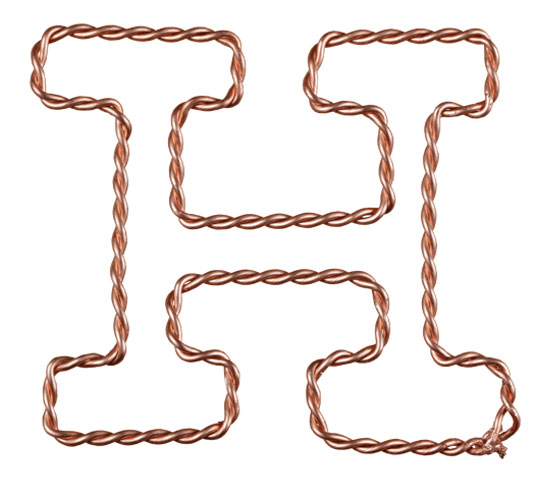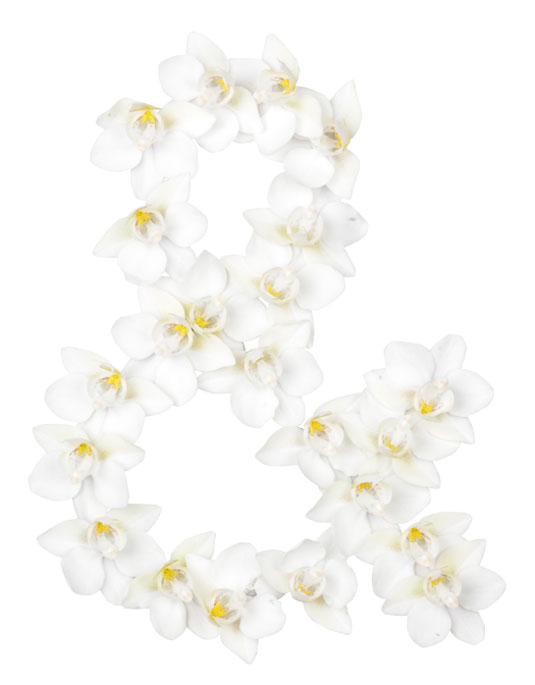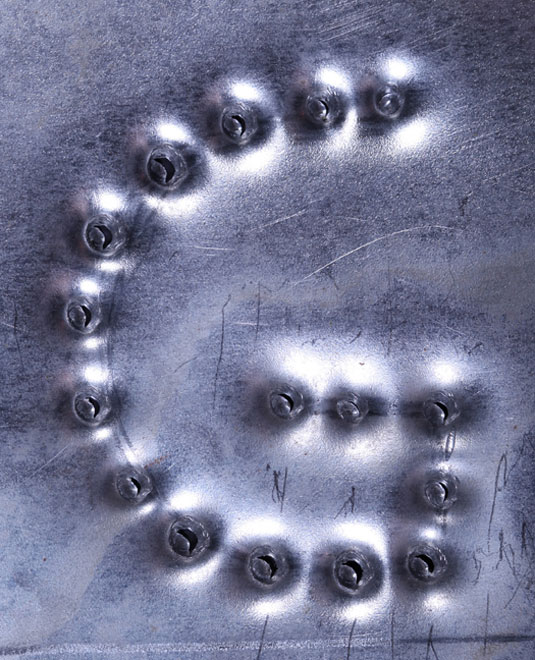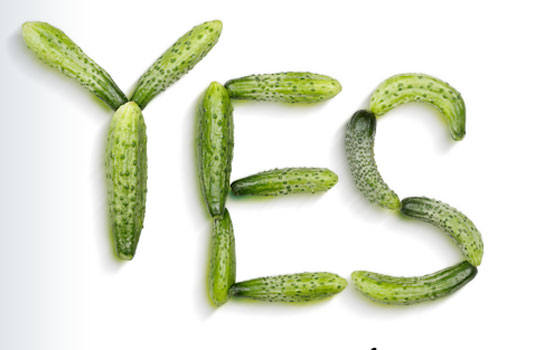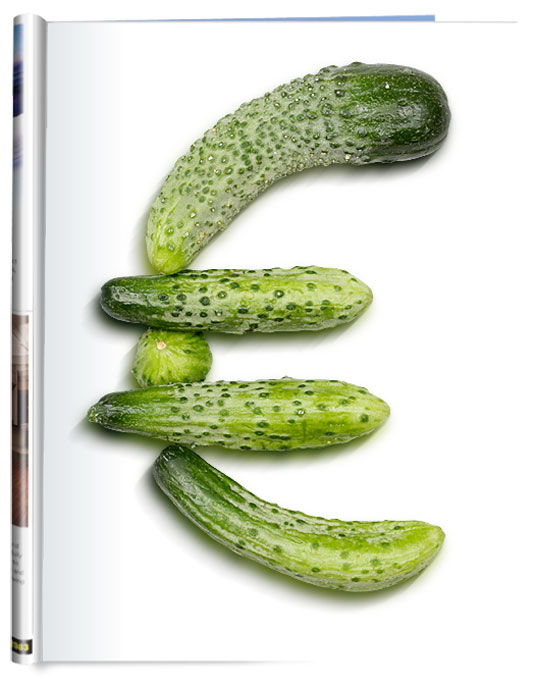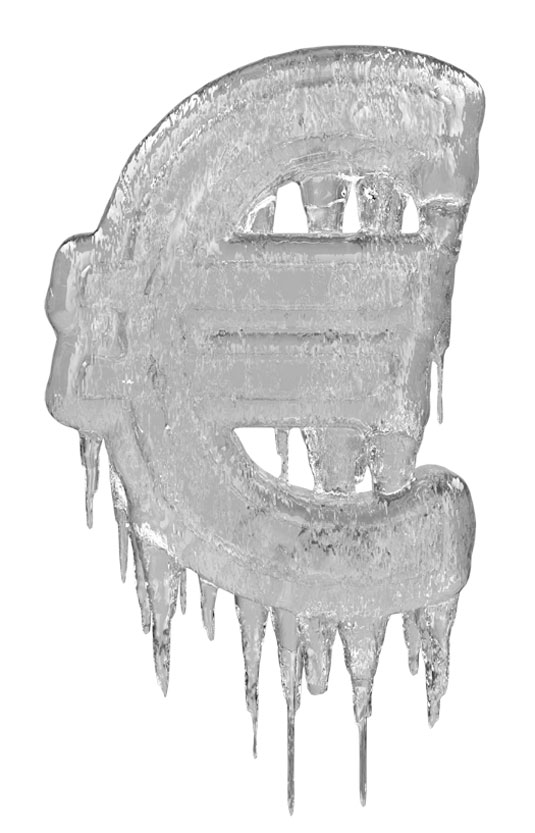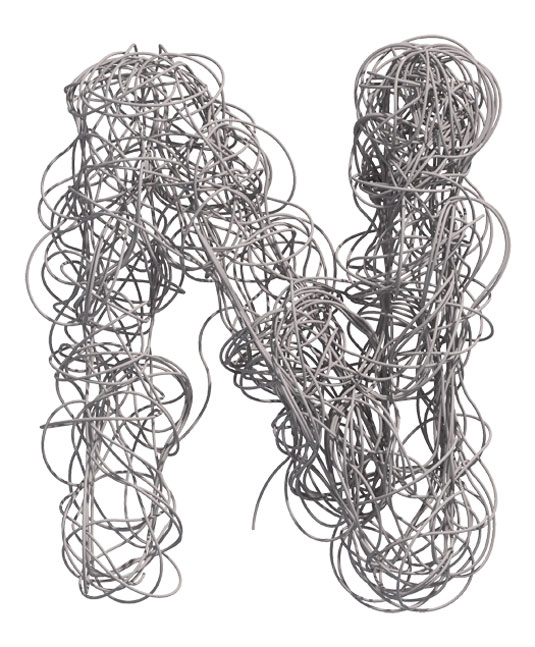
Handmade fonts crafted in cucumbers and foil
Estonia based design company HMF (HandMadeFont) craft fonts inspired by the likes of cucumbers, foil and plywood.
Inspiration can come from the most mundane, everyday objects. When crafting your latest typography project, what do you look to for inspiration? Your fellow graphic designers? A great print ad? A nice photo? Estonia-based agency Handmade Font look less to the expected and more to their kitchen cupboards.
Known for creating unique and untraditional fonts, the company take inspiration from everything that surrounds them. Founded in 2008 by Vladimir Loginov and Maksim Loginov, the fonts they create are available for purchase and personal work.
Below is just some of the company's creations, which include fonts inspired by cucumbers, foil, ice, wires and flowers. We could think of a few projects where these would work really well!